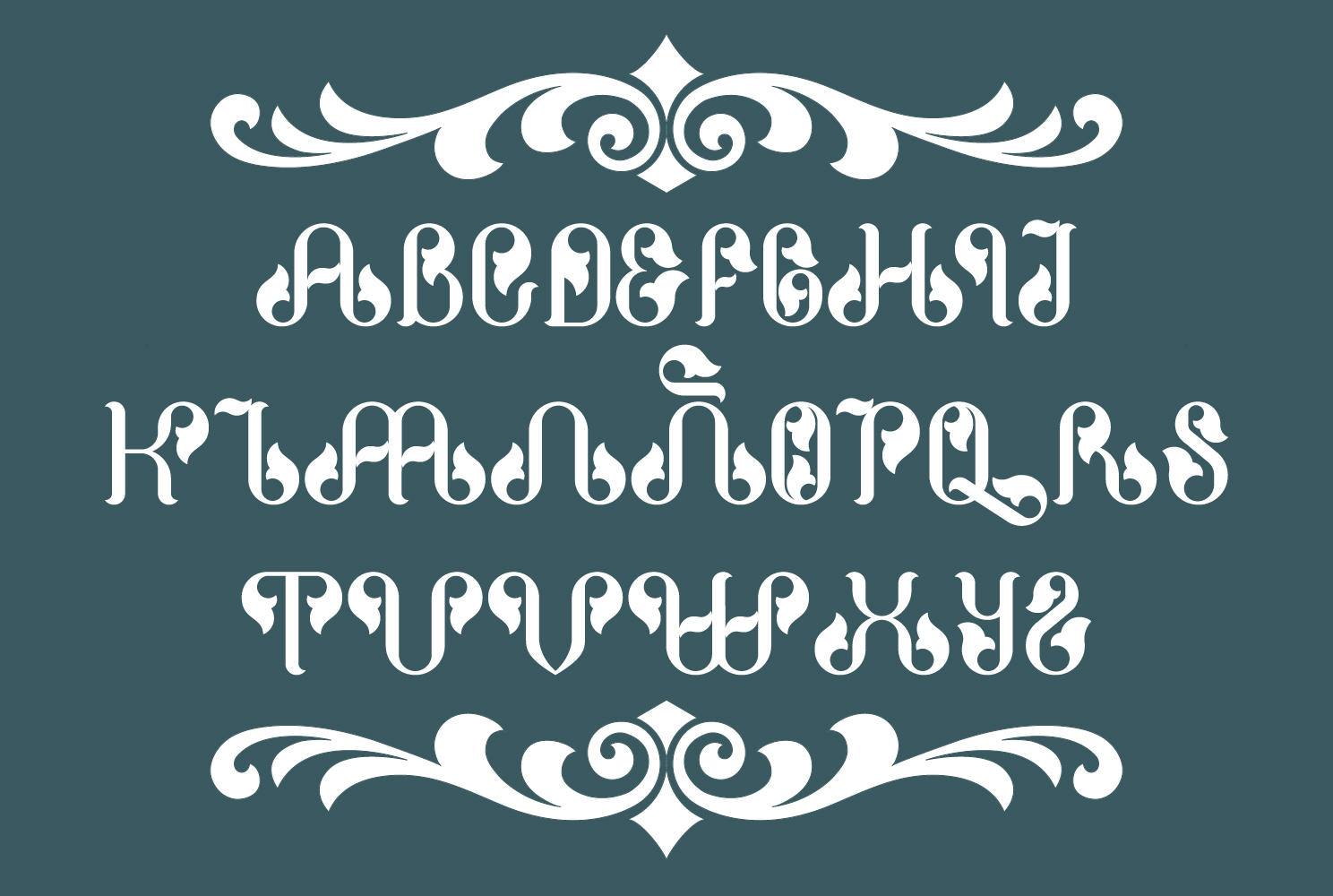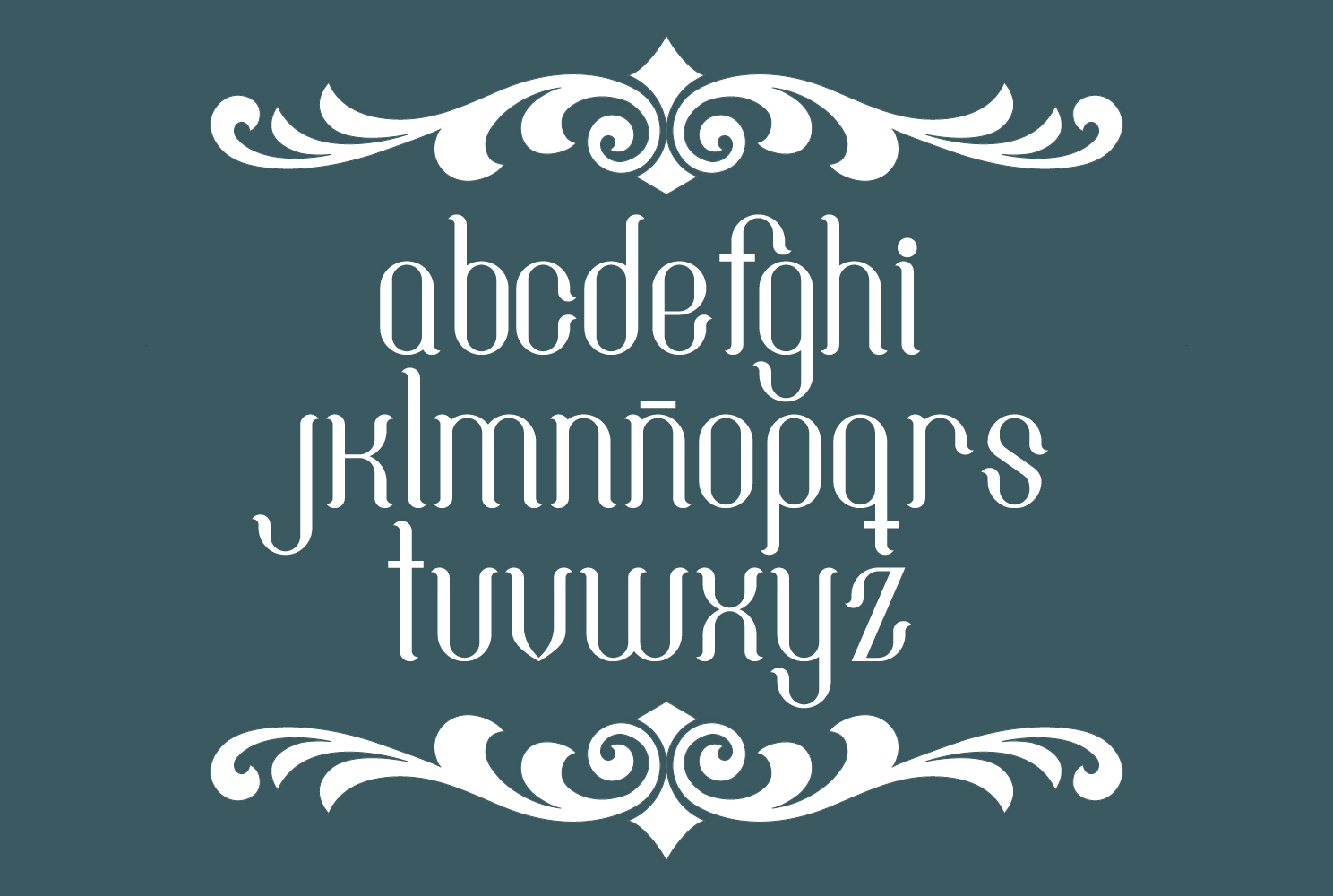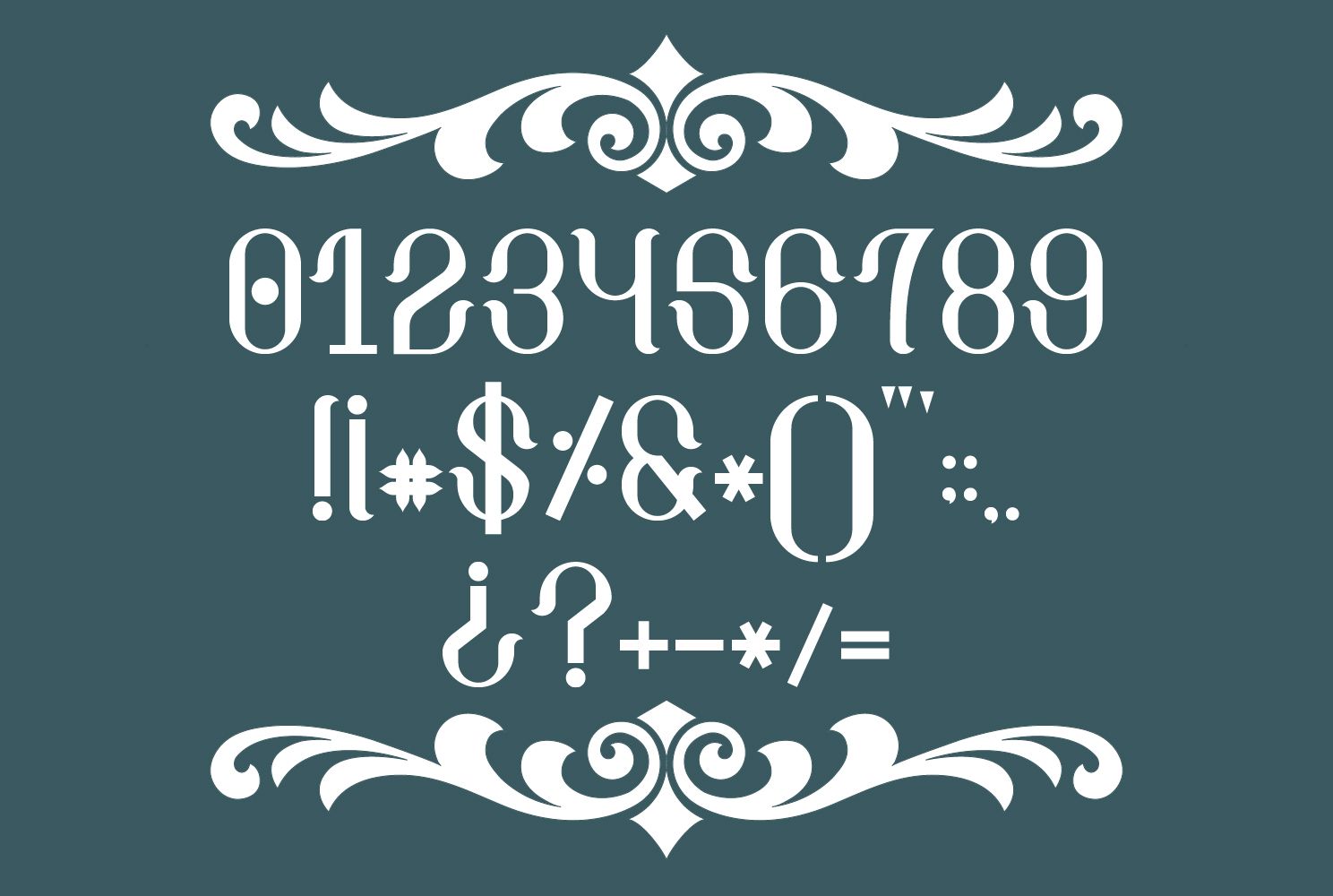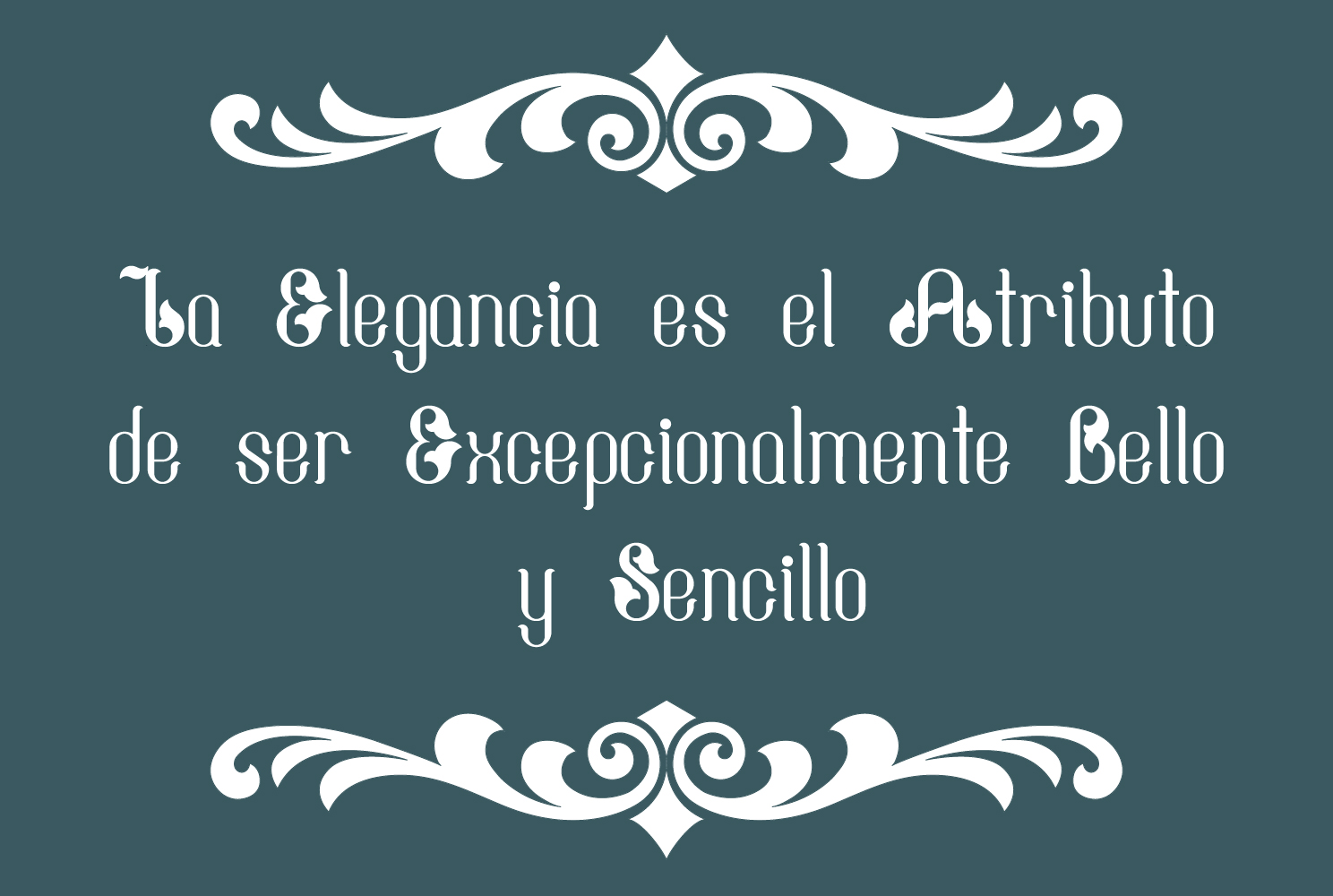
The Elegance of Elegantys Font: A Designer’s Delight
I still remember the time I was working on a project for a high-end fashion brand, and I was struggling to find the perfect font to complement their sleek and sophisticated brand identity. The client wanted a font that exuded elegance and modernity, but I was coming up blank. That’s when I stumbled upon Elegantys Font, and it was love at first sight! 💕
Elegantys was created to encompass both elegant and modern sensibilities of typography, making it a great option for a large range of design styles. This decorative font is charming, and adds a ton of class when used alongside traditional font styles.
An Honest Review of Elegantys Font
- ✨ Elegantys has a unique and sophisticated feel that instantly elevates any design project.
- ✅ The font is incredibly versatile, making it suitable for a wide range of design styles, from luxury branding to wedding invitations.
- 💫 The OpenType features and glyphs are extensive, allowing for endless creative possibilities.
- 👍 The font is well-designed and well-spaced, making it easy to read and visually appealing.
While Elegantys Font is an excellent choice for many design projects, there are a few things to keep in mind:
- ⚠️ Some of the more intricate details may not render well at smaller font sizes.
- 🤔 The font may not be the best choice for body text, as it’s more suited for headings and titles.
A Practical Guide to Using Elegantys Font
The Backstory of Elegantys Font
Elegantys Font was designed with the intention of creating a font that embodies both elegance and modernity. The designer aimed to create a font that would be versatile and suitable for a wide range of design styles, from luxury branding to wedding invitations. The result is a beautiful and sophisticated font that’s perfect for adding a touch of class to any design project.
| Font Name | Elegantys Font |
| Author | TypEra |
Q: What is Elegantys Font?
A: Elegantys Font is a decorative font designed to add a touch of elegance and sophistication to any design project.
Q: Is Elegantys Font suitable for body text?
A: While Elegantys Font is beautiful and elegant, it’s more suited for headings and titles. For body text, a more traditional font may be more suitable.